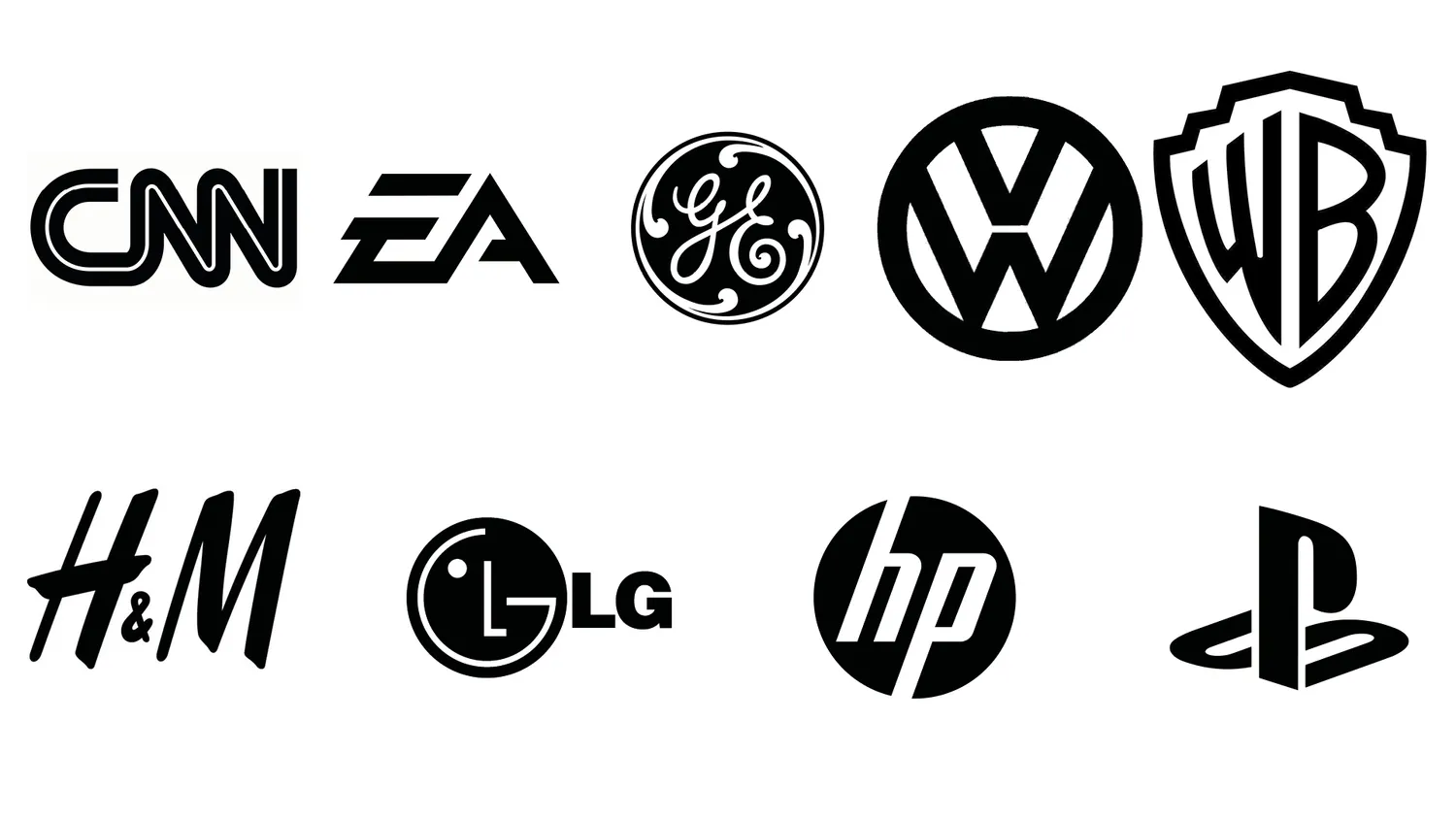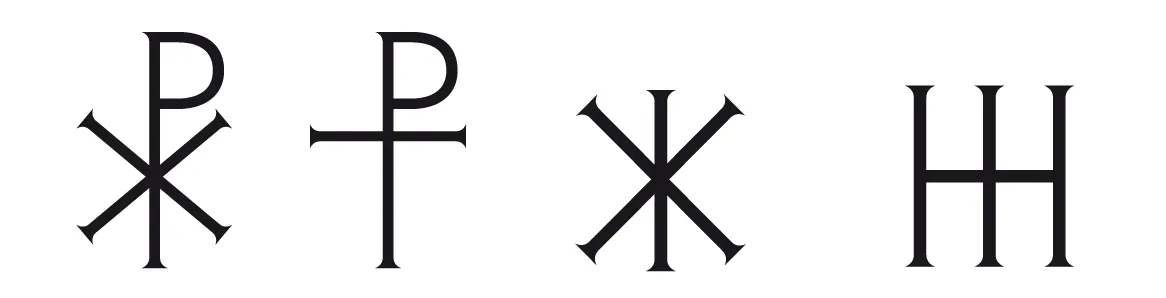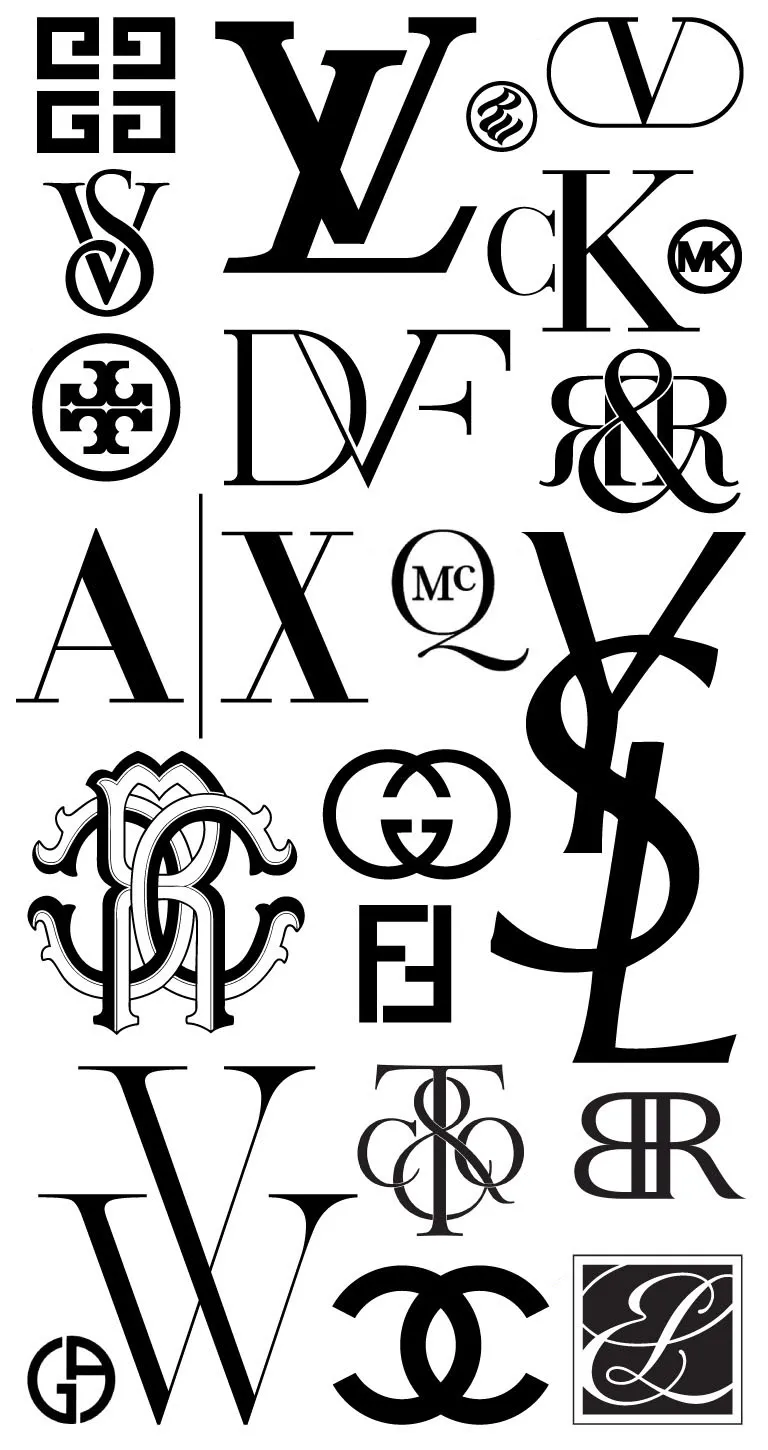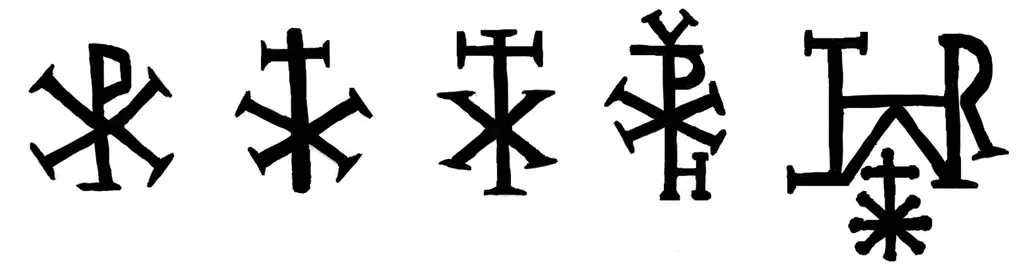
Monogramms: History & Trends in Trademarks
Monogramms:  History & Trends in Trademarks
History
The monogram appears in the late Hellenistic Antiquity as handwritten abbreviations accompanied by a superscript line indicating the abbreviation.
But the usage is also based on that of the Hebrew tetragrammaton YHWH symbolizing the name of God. Unpronounceable in order to preserve its divine status, it also becomes a strong communal sign. As early as the end of the first century, Greek Christians would have adopted this practice to show their Jewish ethnic roots. The nomina sacra are thus Christian monograms abbreviating sacred names into a group of superscribed letters.
Another practice consists of superimposing several letters, thus creating a single symbol. This contraction is still the most efficient, both from a mnemonic and graphic point of view.
Four forms linking two Greek letters are frequently used during antiquity, probably for the variety of sounds translated and their efficient spellings: chi-rho, tau-rho, iota-chi and iota-eta.
The four Christian monograms, from left to right: chi-rho, tau-rho, iota-chi, iota-eta
Tau-rho appears in late 2nd century manuscripts contracting the Greek words cross or crucified, and then becomes the staurogram, i.e. the graphic symbol representing both the two Greek letters and its meaning of cross, but also the graphic simplification of the crucified Christ.
xChi-rho gradually supplanted the tau-rho and became established around the fourth century during the reign of Constantine I. It shortens the name Christ.Iota-chi and later iota-eta, like the chi-rho, abbreviates Jesus' name.
In the middle of the fourth century, the Romans saw in the Christian monograms extralinguistic properties having at the same time an aesthetic value and symbolizing the members of the social elite. Formed by the set of letters constituting the name of the individual, the Roman monogram is organized by a set of ligatures flexible enough in a compact group. They are therefore found on the sarcophagi of the catacombs, on silverware, boxes containing silver objects and marking the property as well as the social prestige.
Precious stones from Asia Minor engraved with Christian monograms around the 3rd quarter of the 3rd century: the variety of spellings shows great freedom of use as well as composition, between chi-rho, chi-tau but also versions adding other letters to the whole. Mounted on a ring, these stones could then be used as sealing rings affixing a personal seal whose monogram served as divine protection for the sealed goods.
The monogram in its Byzantine form is the survival of the Roman Empire through the Ostrogoth (Italy), Vandal (Spain), Burgundian and Merovingian (Gaul) kingdoms. The style evolves under Theodebald (548-555).
But towards the XIVth century, the monogram changes radically of morphology and logic. Instead of covering all the letters of the name, it keeps only the initials of the patronymic and the first name, composed in a skilful and graceful interlacing. This reduction is a radical return to the Roman capital letter, as much as an evocation of the initials found on certain objects of the Roman daily life. Paradoxically, these monograms, called cypher, are more easily readable for our contemporary eyes than the Byzantines monograms.
From the fourteenth century, the wedding trousseau is codified: the domestic textile (body linen, bedding and table) is embroidered with red thread. Then, in Italy during the Renaissance, the first collections of figures dedicated to personal embroidery appeared and were sold by hawkers. In the seventeenth century, girls of wealthy classes learn the alphabet through embroidery in anticipation of the preparation of the wedding trousseau. The practice was democratized at the beginning of the 19th century, and the collections of embroidered figures became popular under the influence of the beginning of the press and the democratic schooling.
Brand of nobility, trade and associated with textiles, these are the ingredients gathered to make the monogram the symbol of luxury. It is to Georges Vuitton that we owe in 1896 the monogram LV, paying tribute to his father Louis, so that the forgery of the emblematic pattern is more difficult.
How to design a monogram?
Monograms are interesting pieces of graphic design devices.
They condense long names into a few letters. Is your name very long? It includes foreign words that are difficult to pronounce? The monogram allows you to keep only the important letters. If, in addition, these initials read like a word, then you have a monogram.
They create a visual sign that goes beyond reading. You remember the shape of a monogram in the blink of an eye, and of course these letters.
They easily connote luxury, tradition, family, in short, what we find in the history of this type of sign.
Illustration Tradition & Luxe : Mode : Givenchy, Louis Vuitton,Valentino, Rocawear, Victoria's secret, Calvin Klein, Michael Kors, Tory Burch, Diane von Fürstenberg, Rock & Republic, Armani Exchange, Alexander McQueen, Yves Saint-Laurent, Roberto Cavalli, Gucci, Fendi, Vera Wang, Tiffany & Co, Banana Republic, Chanel, Estée Lauder, Giorgio Armani.
07. Colors
At the end, try to add some colors, but remember to keep the whole design simple et striking.
Contraction, legible, pronounceable:
CNN (Cable News Network), Electronic Arts, General Electric, Wolkswagen, Warner Bros
H&M (Hennes & Mauritz), LG (Lucky Goldstar), HP (Hewlett Packard), PlayStation.